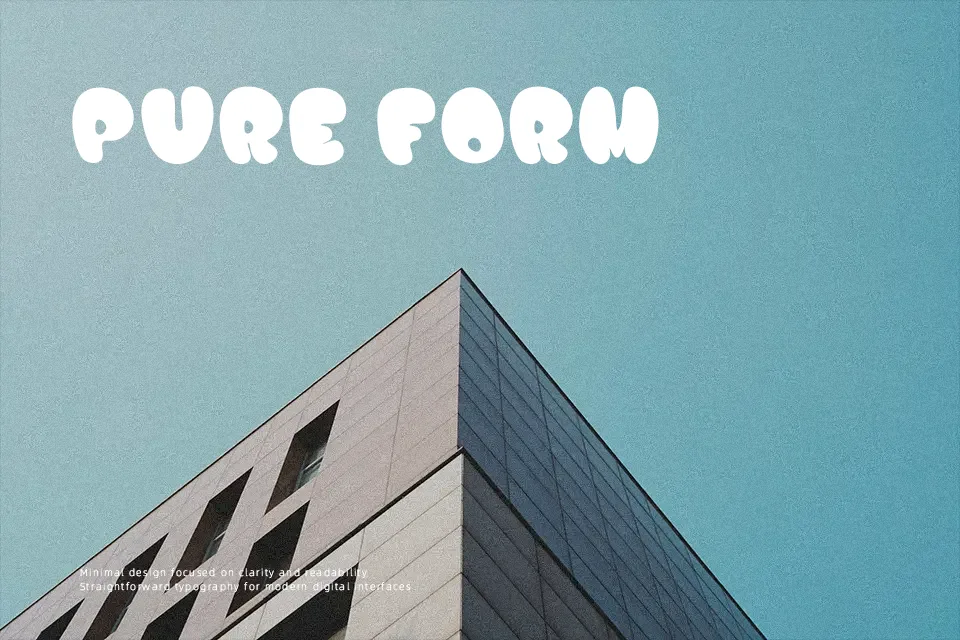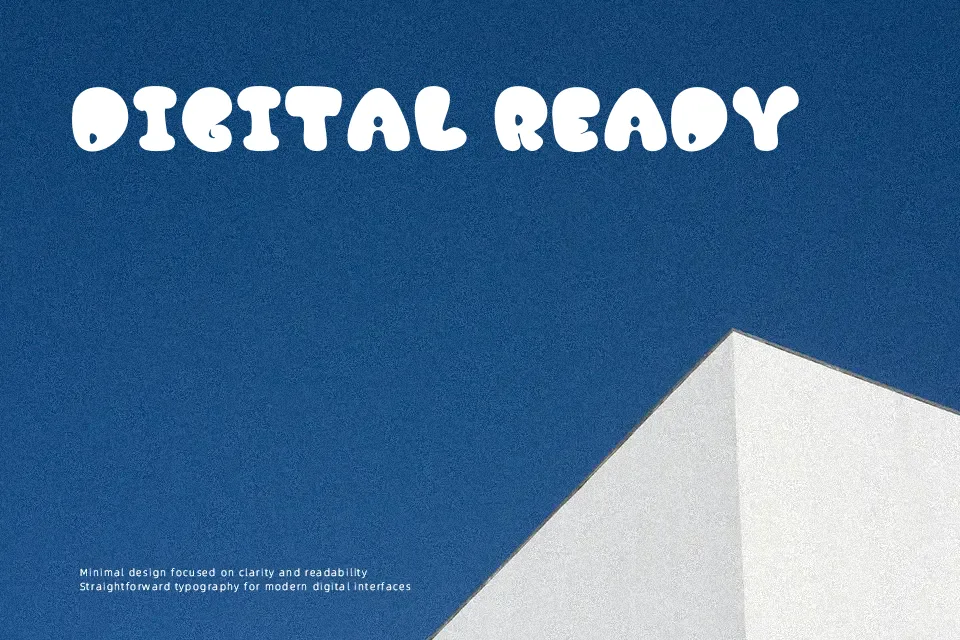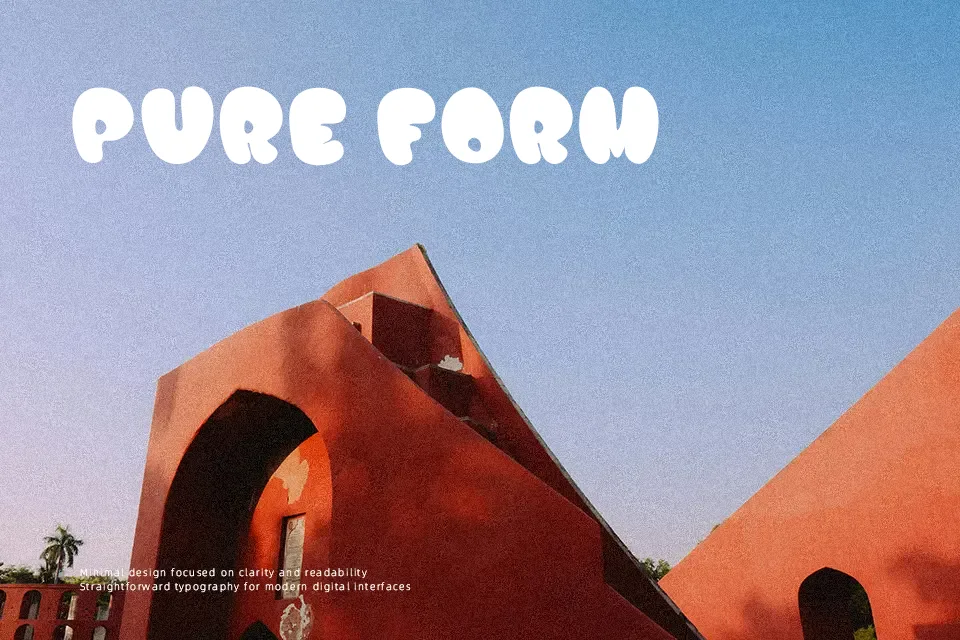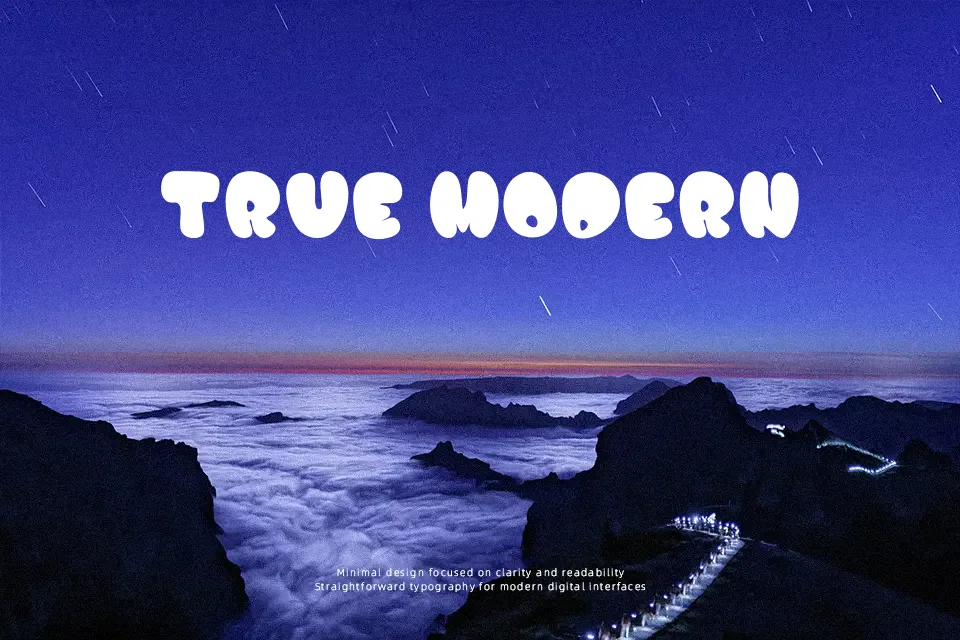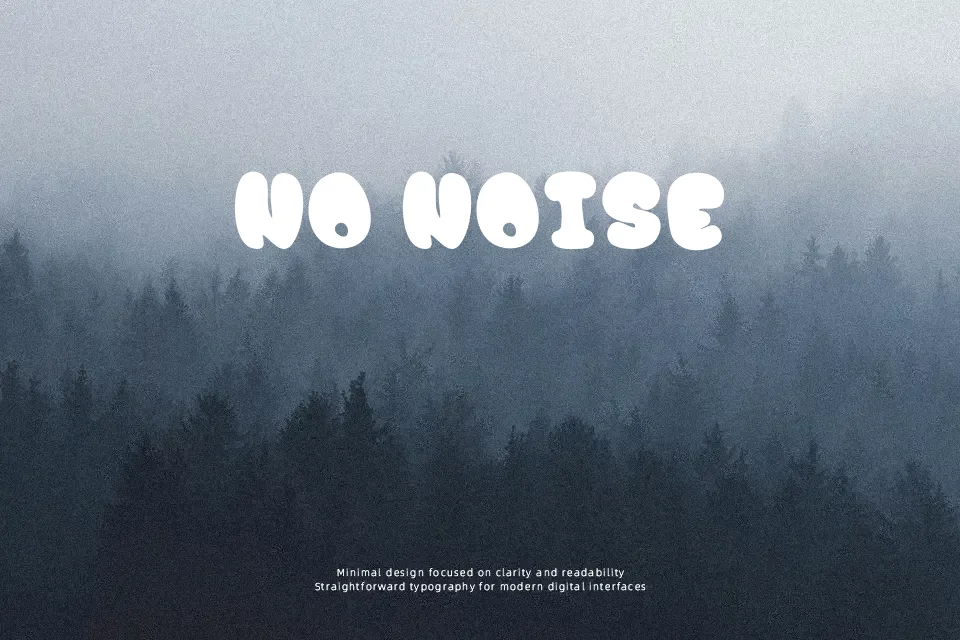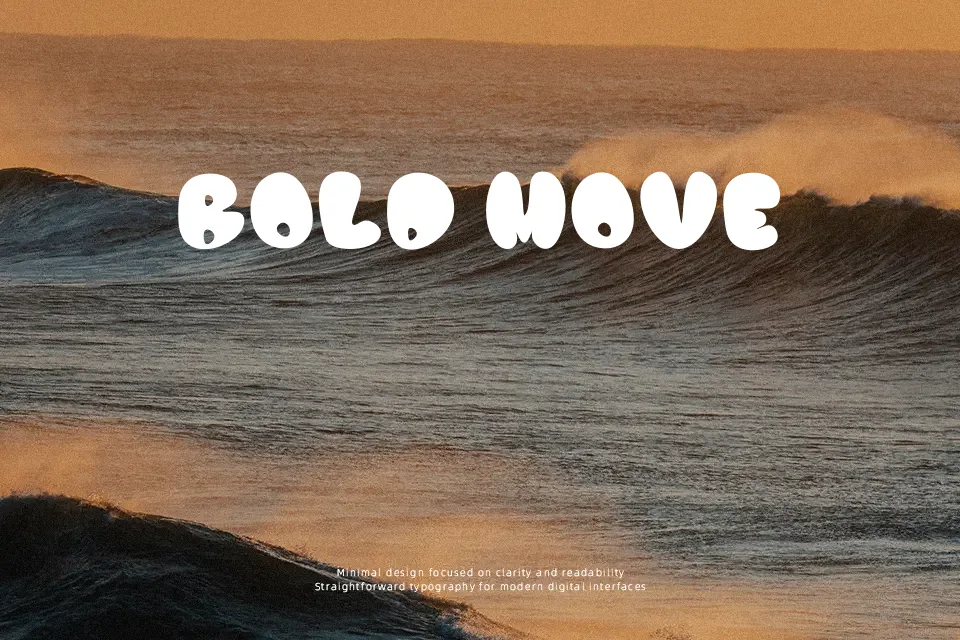
Berry Juice Font
The letterforms in Berry Juice carry rounded, bubbly outlines with uneven stroke weight that gives them a hand-drawn, almost illustrated quality. It reads casual and energetic rather than polished — the kind of typeface that feels drawn with a marker rather than constructed. That looseness is what makes it land well on kids’ packaging labels, food and beverage social posts, or playful poster headlines. Where it struggles is legibility at small sizes; the thick, irregular strokes start competing with each other below 18px, making it a poor choice for body text or UI labels. At large display sizes, the character spacing holds up, but don’t expect the font to carry extended copy — it fatigues quickly. A fair comparison in energy would be a cartoonish cousin to Bubblegum Sans, minus the web-safe refinement.
Best For:- Kids’ snack or juice packaging headers
– Cartoon-themed poster titles
– Social media graphics for food and beverage brands
– Playful logo treatments for youth-oriented products
Not Ideal For:- Body text or long-form reading
– Corporate or formal branding
– Small-size UI labels or captions
Perfect for kids, logo, and packaging, with a cute and cartoon style.